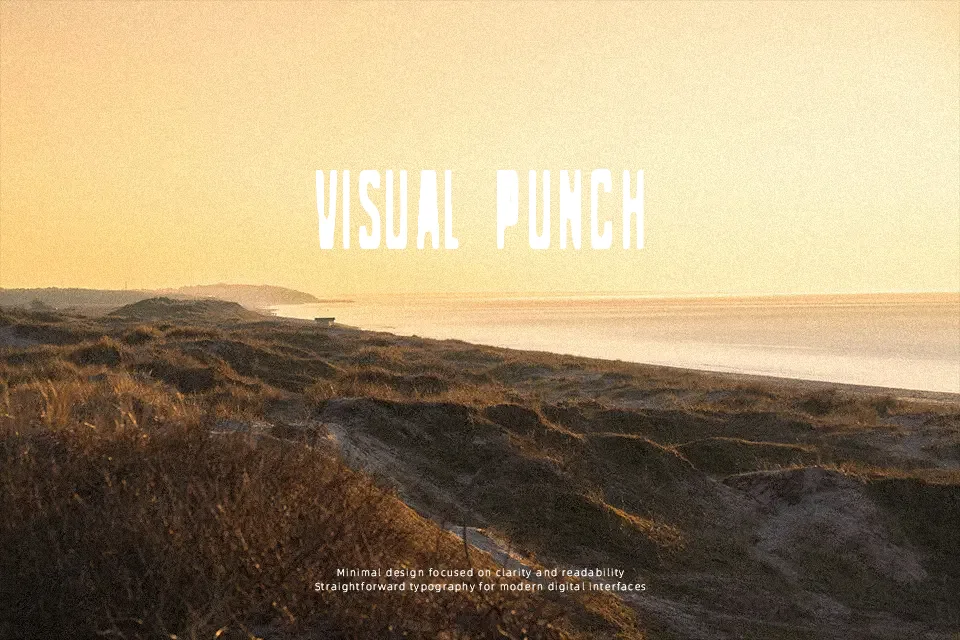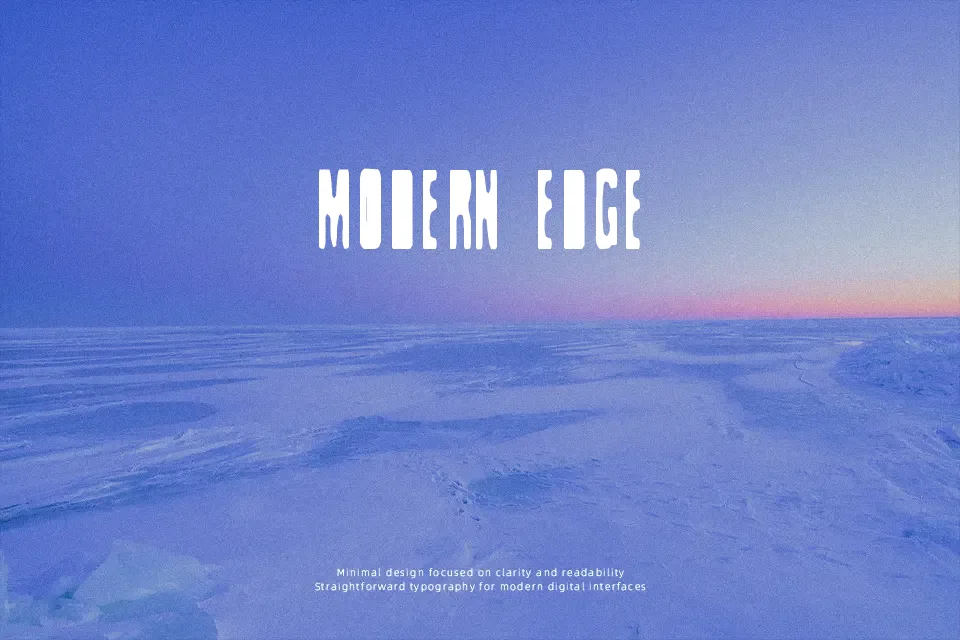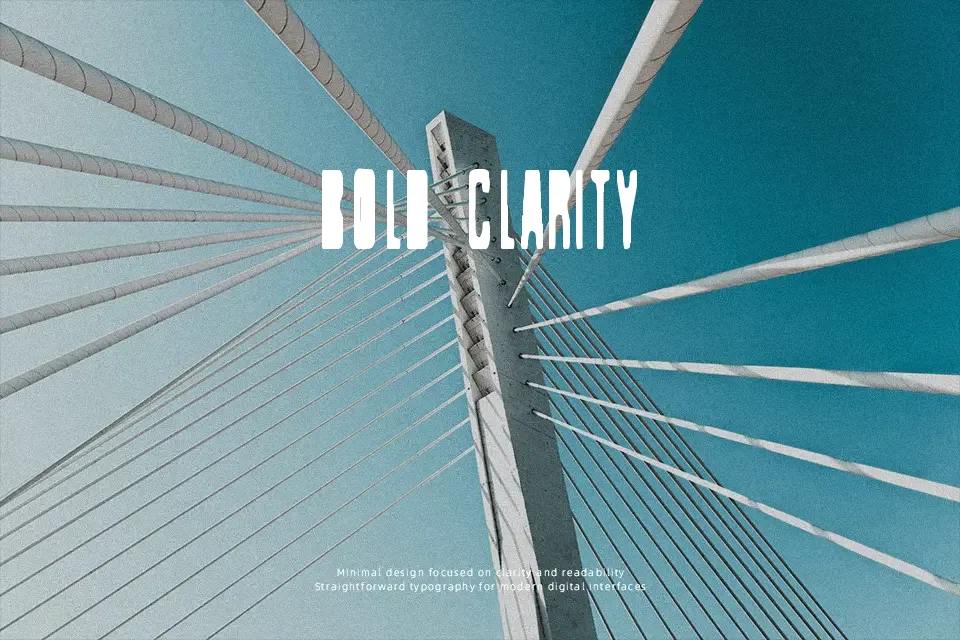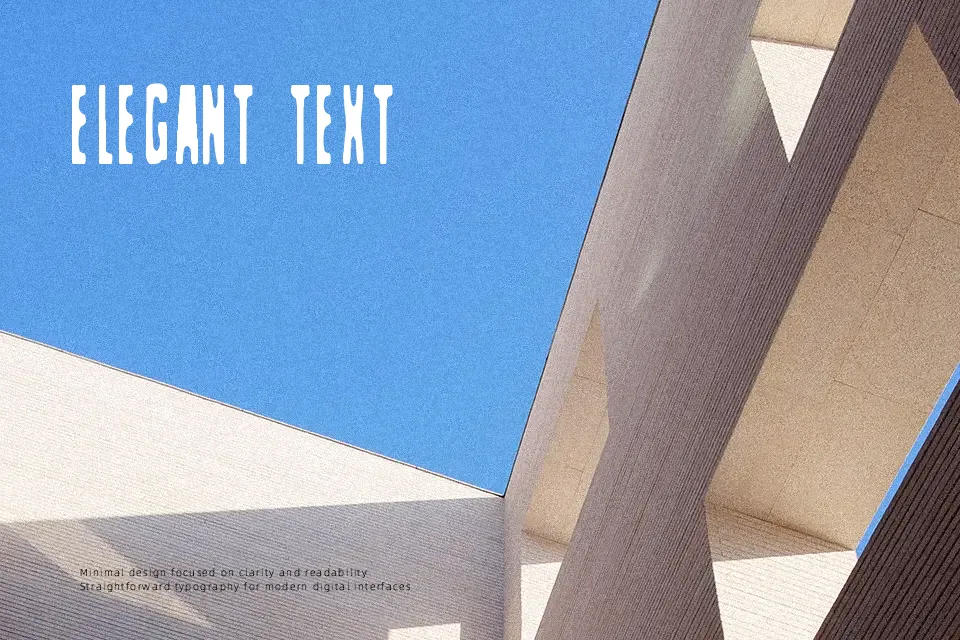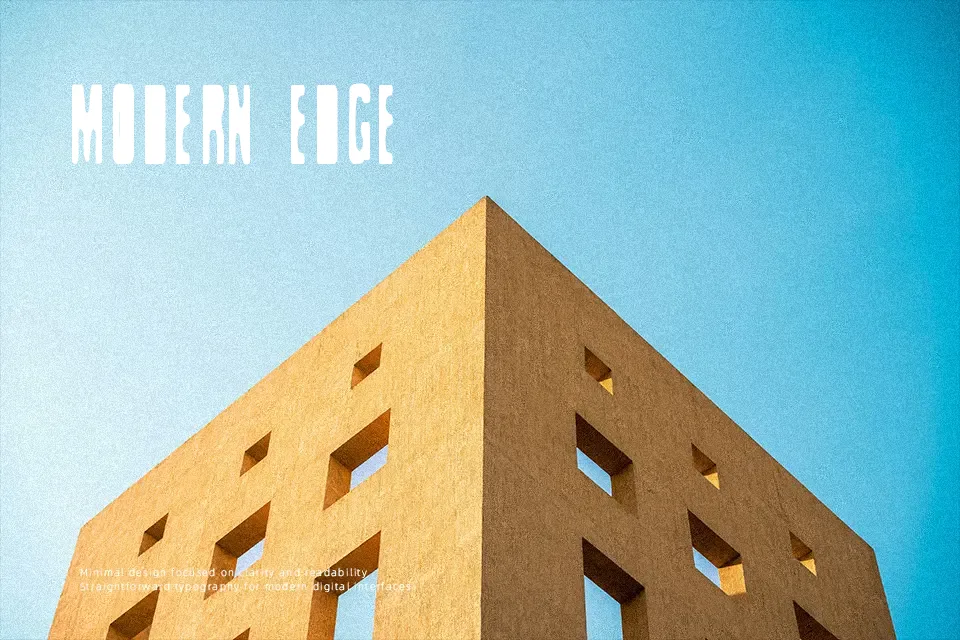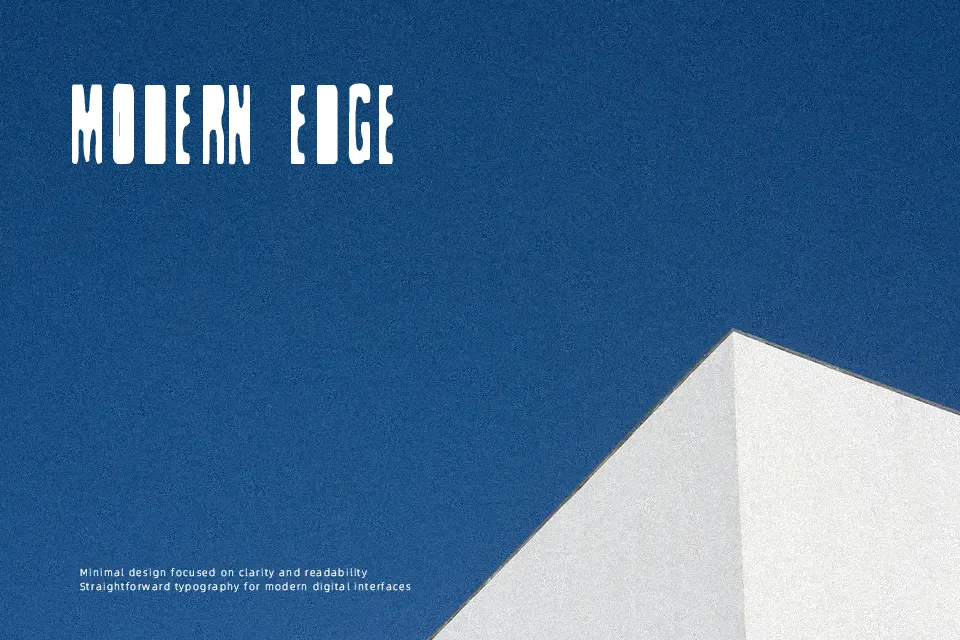
Celofan Font
Defined by tall proportions and fragmented edges, Celofan Font presents a heavily distressed aesthetic built with substantial vertical weight. The letterforms feature irregular outer contours and inconsistent erosion that give each character a worn, tactile presence. Moderate tracking maintains distinct character separation across short titles, ensuring the condensed structures do not merge together at display sizes. The design performs effectively on underground band merchandise, streetwear branding, and atmospheric title cards. However, the abrasive erosion significantly hinders continuous legibility when set in multi-line paragraphs. The heavy distressing creates commanding headline impact, though intricate edge artifacts quickly degrade at smaller point scales.
Best For: underground music posters, streetwear apparel graphics, atmospheric book covers, horror film titles
Not Ideal For: multi-line body text, mobile interface labels, corporate business documents, spreadsheet data tables
Perfect for branding, headline, and music, with a bold and condensed style.